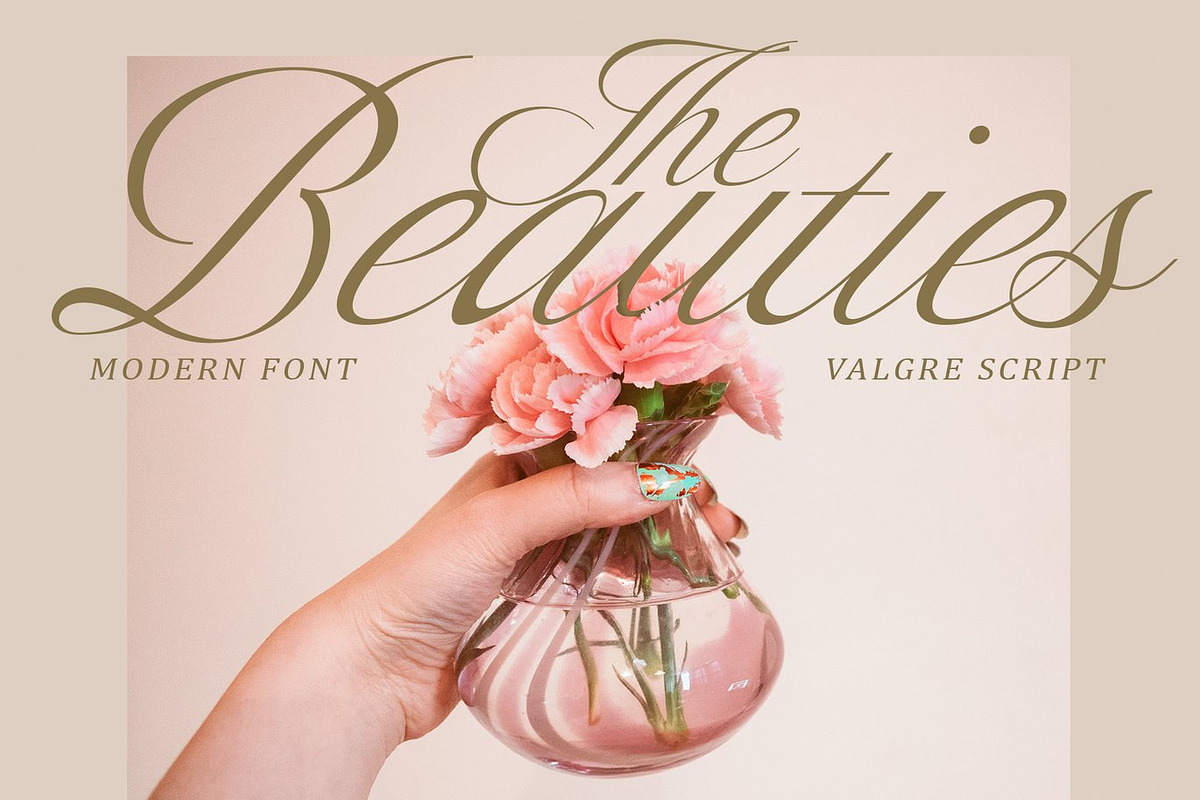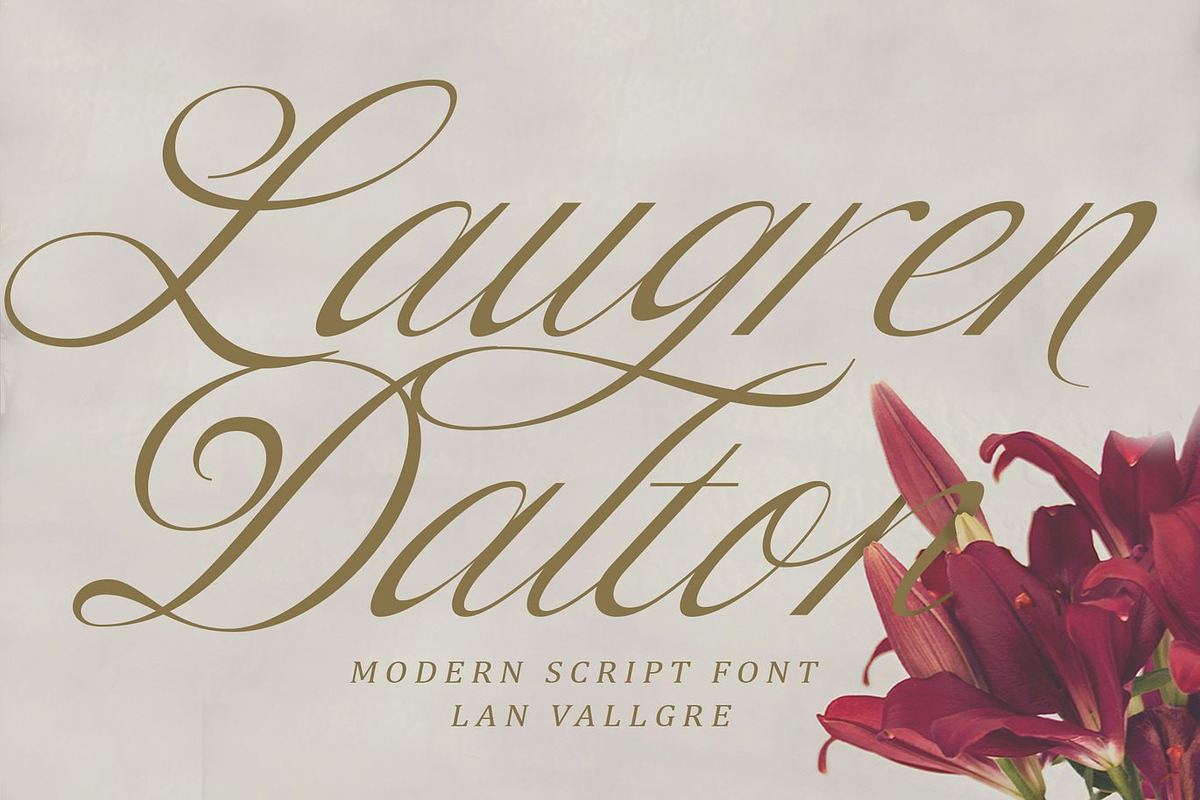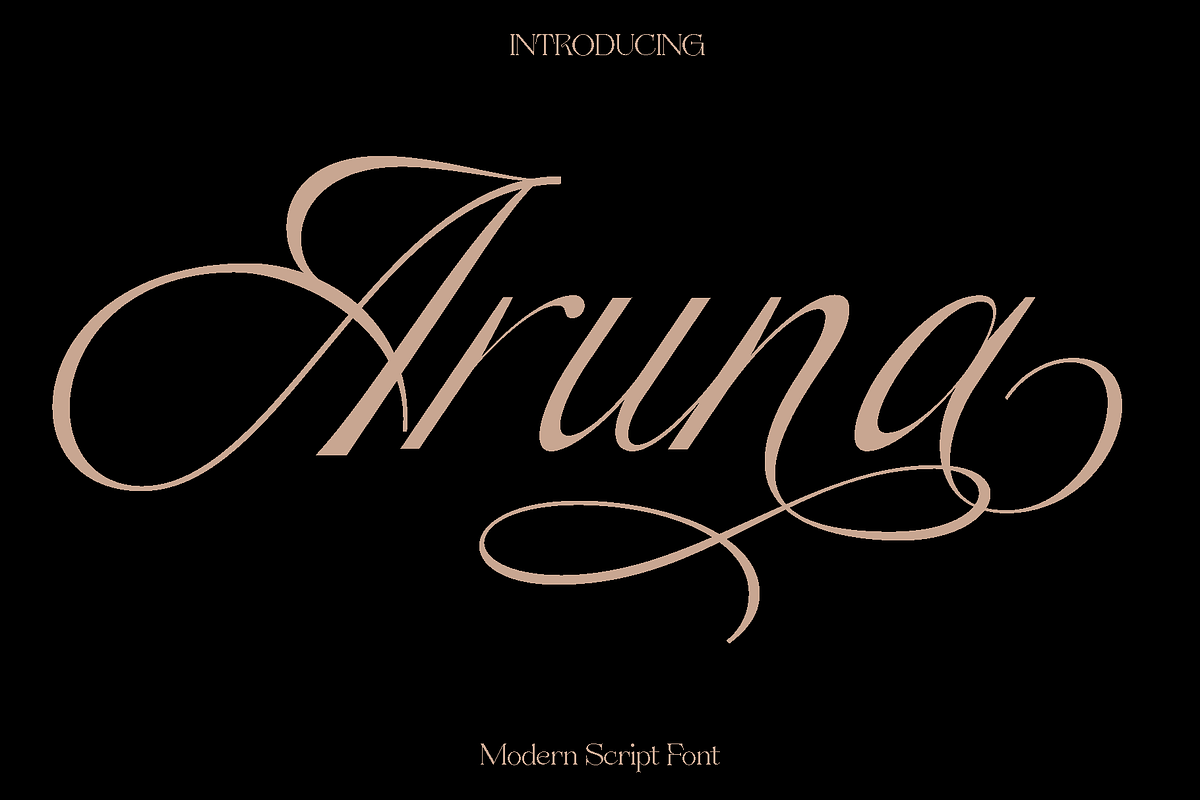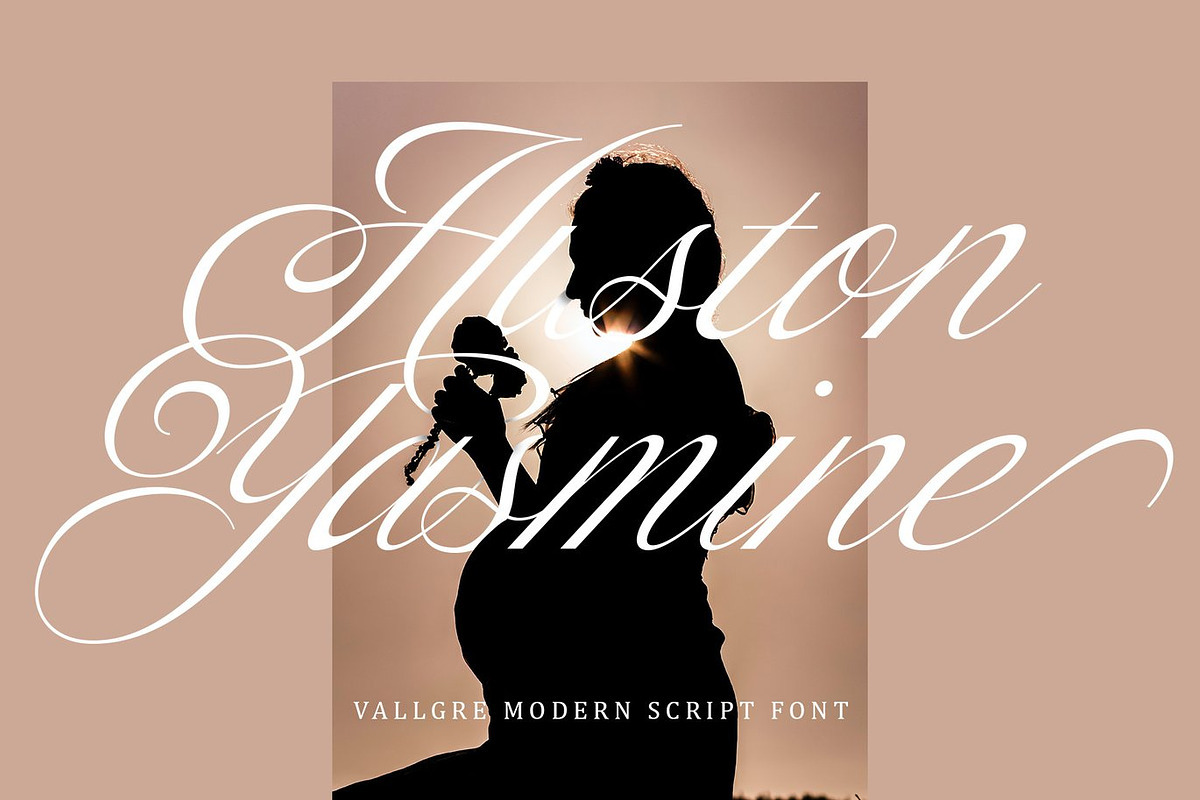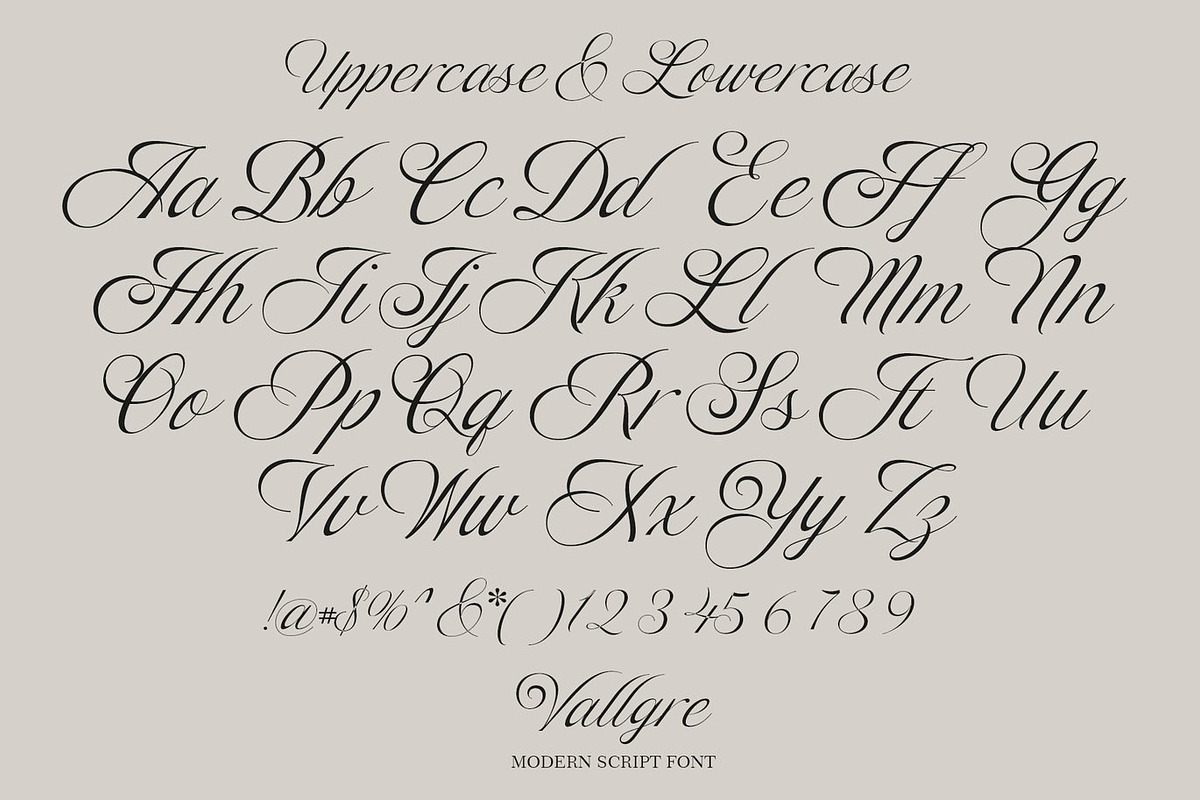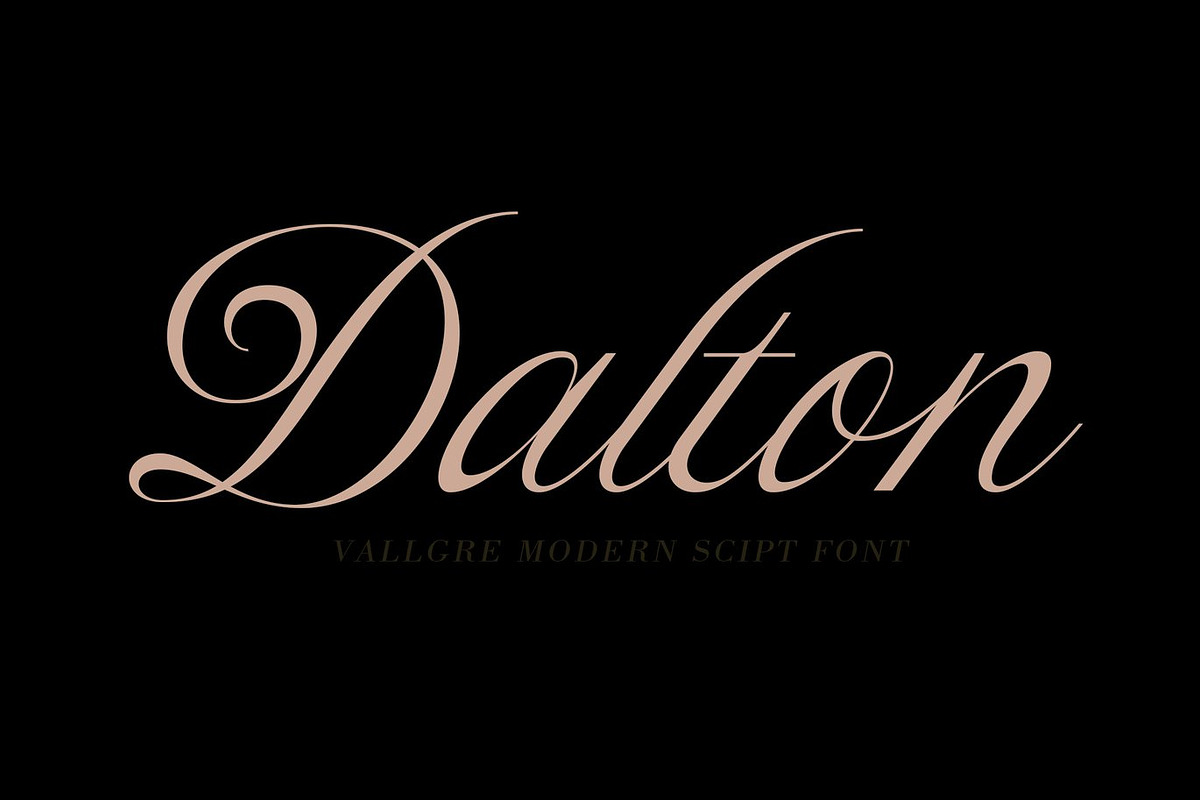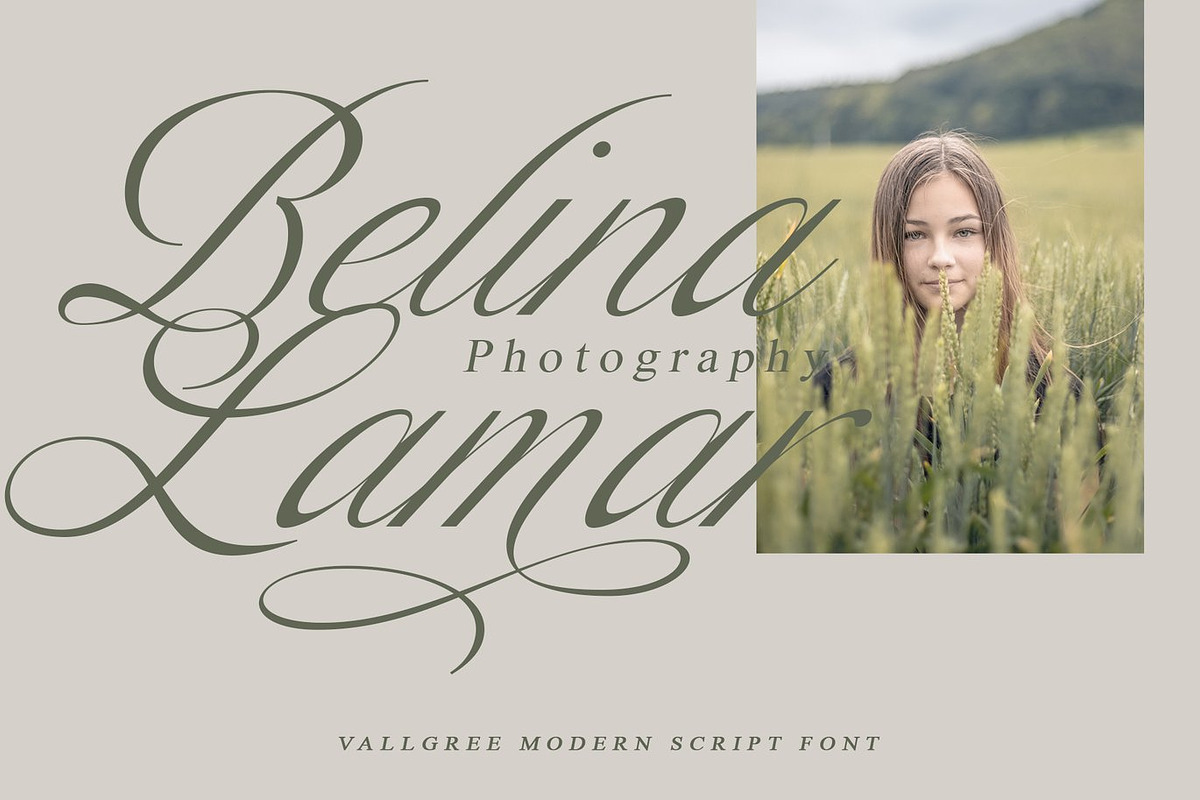
Aruna - Handwritten Script Font
Aruna is a graceful script font designed to bring warmth, personality, and a handcrafted touch to your creative projects. Inspired by the beauty of natural handwriting and modern calligraphy, Aruna features flowing strokes and smooth connections that create an inviting and expressive look. Its balanced rhythm and soft curves give every word a sense of authenticity, making your designs feel personal and engaging.
This font shines across a wide range of applications where style and emotion matter. Aruna is perfect for book covers, magazines, logos, branding, photography overlays, quotes, blog headers, posters, and advertising materials. Whether used for bold headlines or subtle decorative text, it adds charm and elegance that instantly enhances the visual appeal of your work.
Aruna feels friendly, stylish, and versatile. It blends artistic flair with readability, allowing designers to create compositions that feel both professional and creative. From modern branding to romantic stationery, Aruna adapts effortlessly while maintaining its distinctive handwritten character.
Aruna Script Font Features:
• Uppercase and lowercase characters
• Numerals and functional glyphs
• Multilingual support
• Smooth script letterforms
Aruna is an excellent choice for designers seeking a script font that delivers elegance, flexibility, and timeless charm in every project.